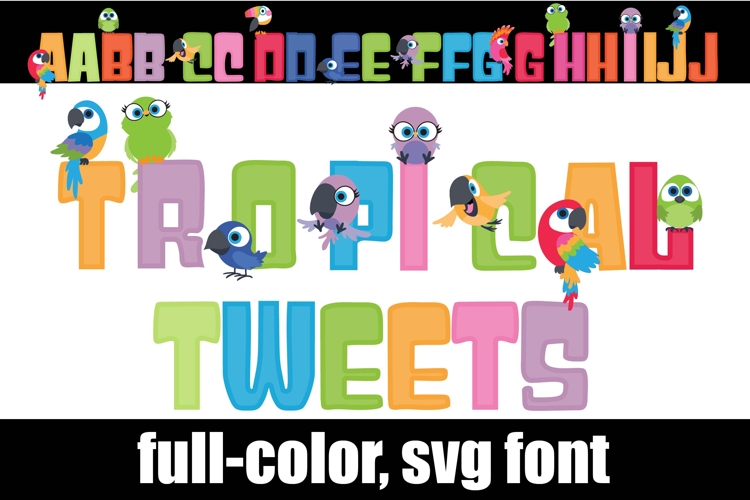
Tropical Tweets Color Font
This full-color, rainbow-colored font has tropical birds on the uppercase. There is an alt case of additional colors of each letter that you can access through your system's character map.